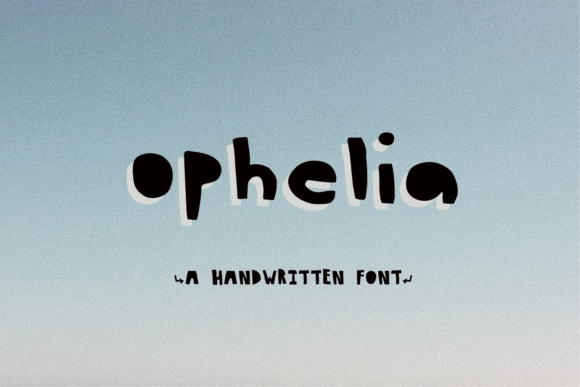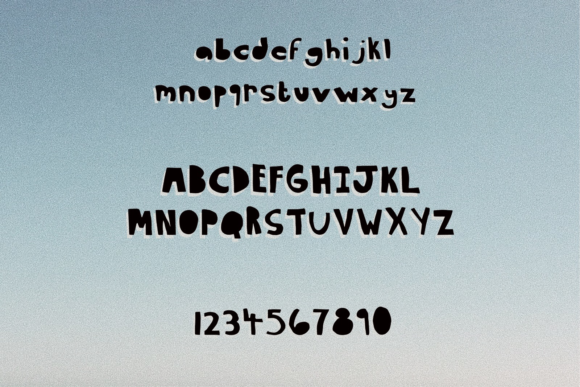
HomeScript FontsOphelia Font Script Fonts Ophelia Font FacebookXPinterestWhatsApp Ophelia Font Poster 2 About Ophelia Font The Ophelia is an unique brush font, perfect for quirky and cute designs. DOWNLOAD ON CREATIVE FABRICAThis font is sold and delivered by Creative Fabrica. Font Canyon may earn a commission if you buy through this link. People also explored Creative Text Font Hope Staylig Font Fannisha Font Almerita Font Think Font Harritton Font Horelios Extra Black Font Bellinda Script Font Bella Madelyn 277 0 TagsOphelia Font Previous articleHandroberg FontNext articleDomineers Font LEAVE A REPLY Cancel reply Comment: Please enter your comment! Name:* Please enter your name here Email:* You have entered an incorrect email address! Please enter your email address here Website: Save my name, email, and website in this browser for the next time I comment. Personal Use Free Burnstown Dam Personal Use Free Read more about this font Mike Ferrari 16017 Personal Use Free Read more about this font December Christmas Personal Use Free Read more about this font Mandarins Personal Use Free Read more about this font BLOG Best Fonts for T-Shirt Design – Top 2025 Picks In 2025, t-shirt design has become more than just fashion—it's a form of self-expression. Whether you're... Free Fonts Risk: Why Free Fonts Can Be Dangerous for Designers Free vs Paid Fonts: Why Investing in Premium Fonts Is Worth It Elegant Wedding Invitation Fonts – Handwritten & Script Fonts